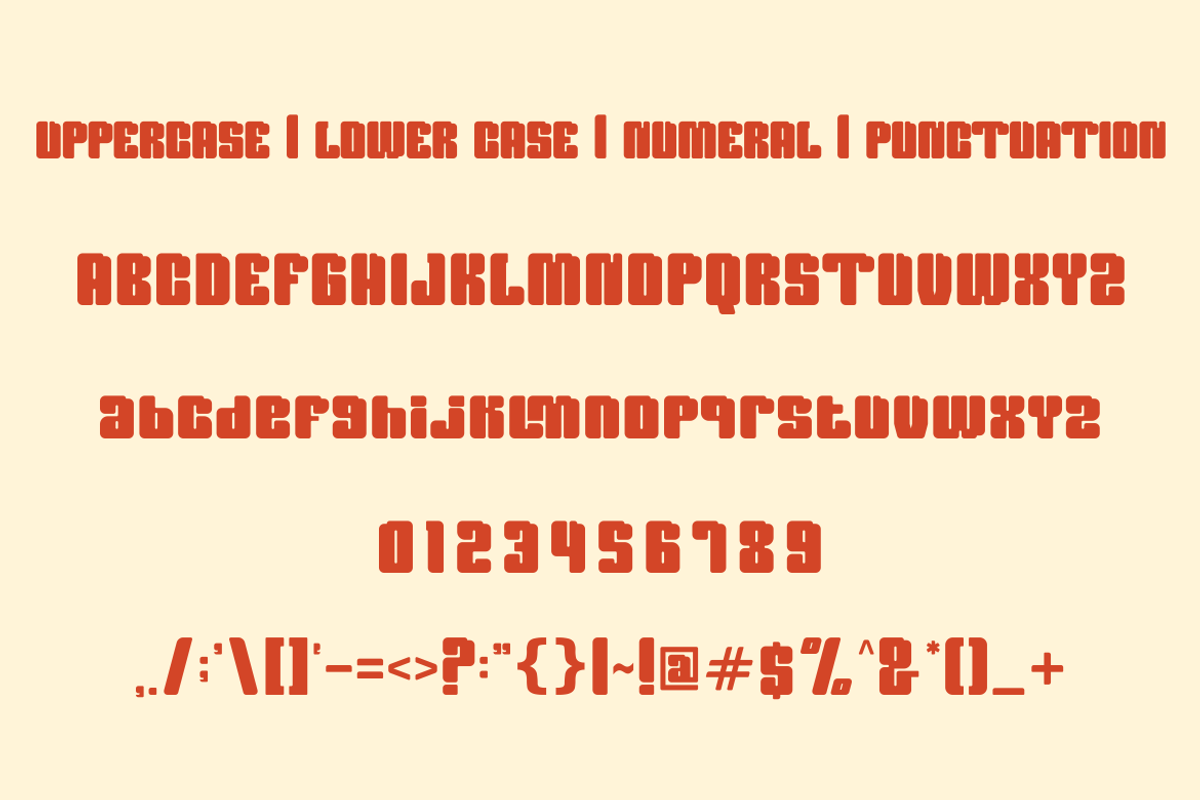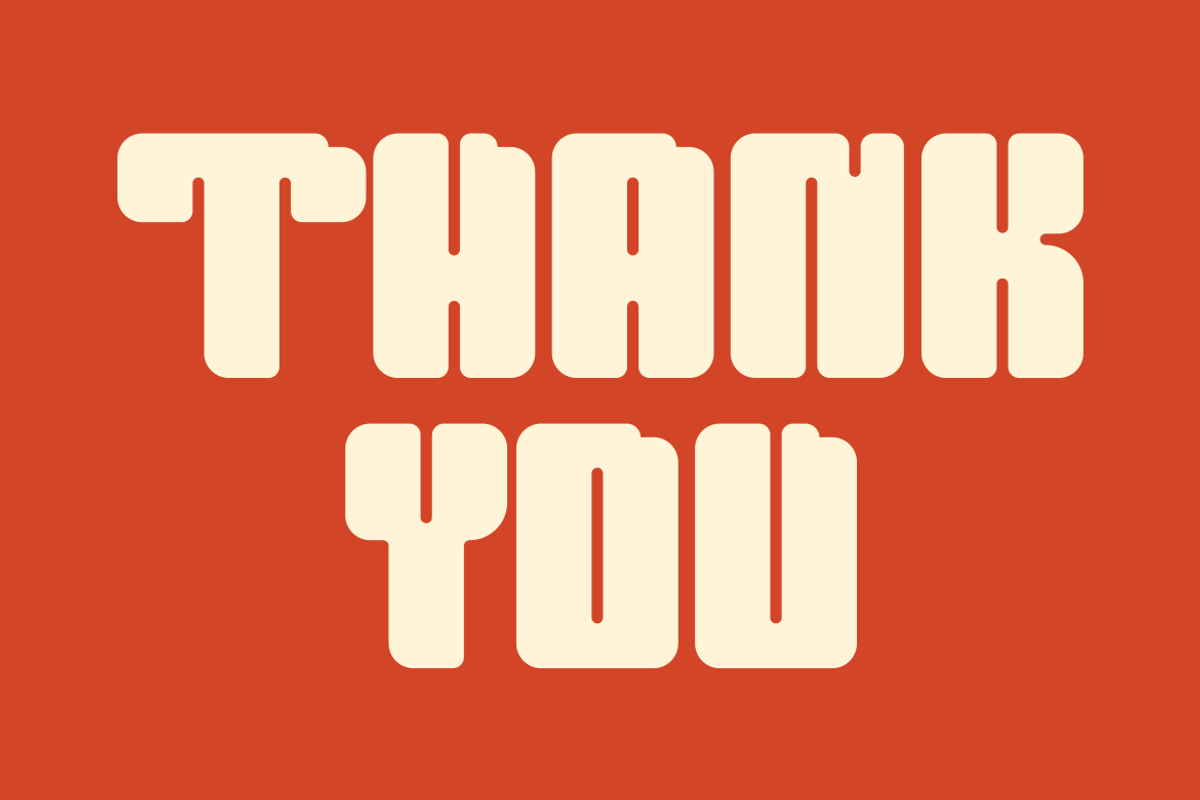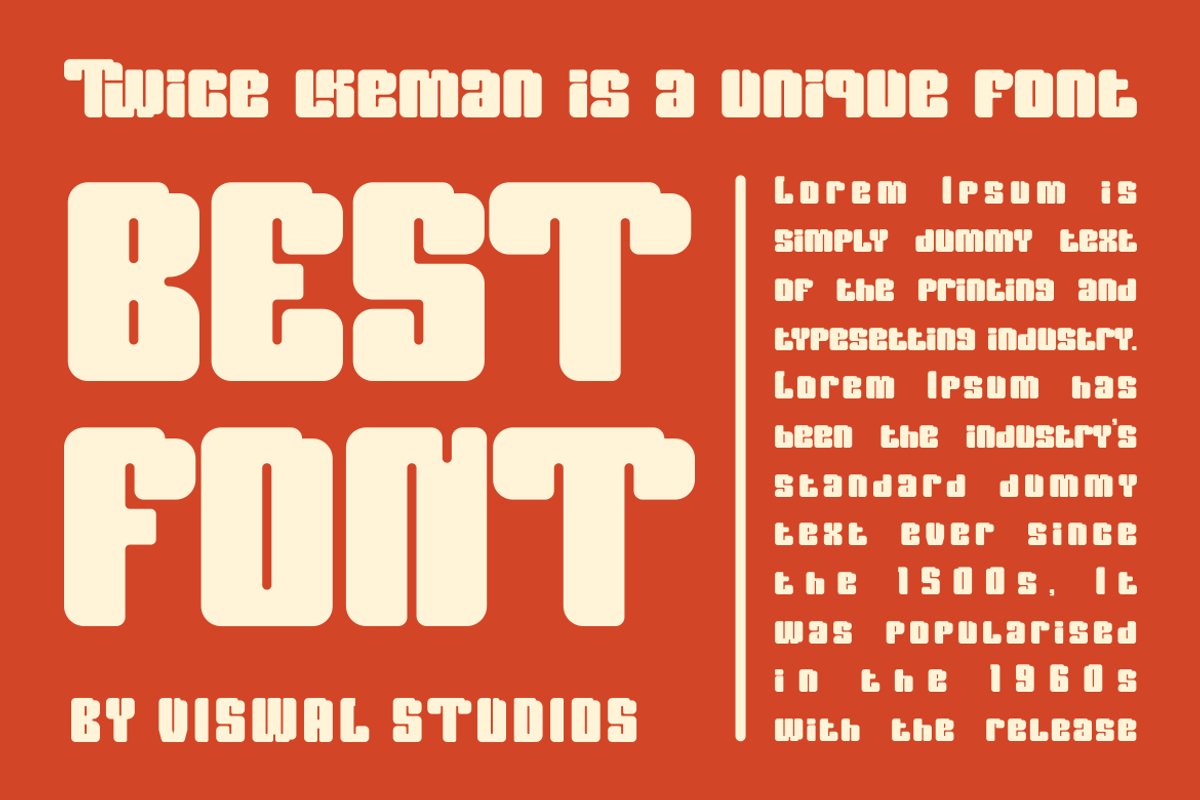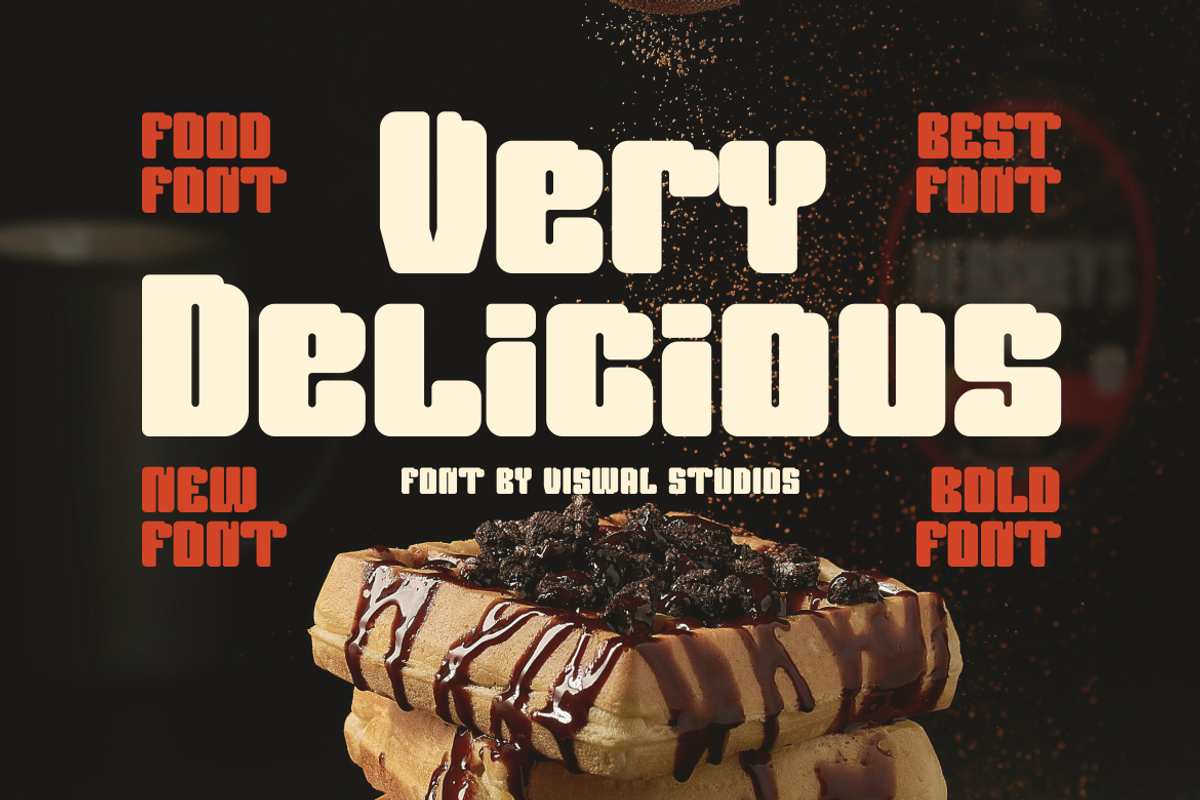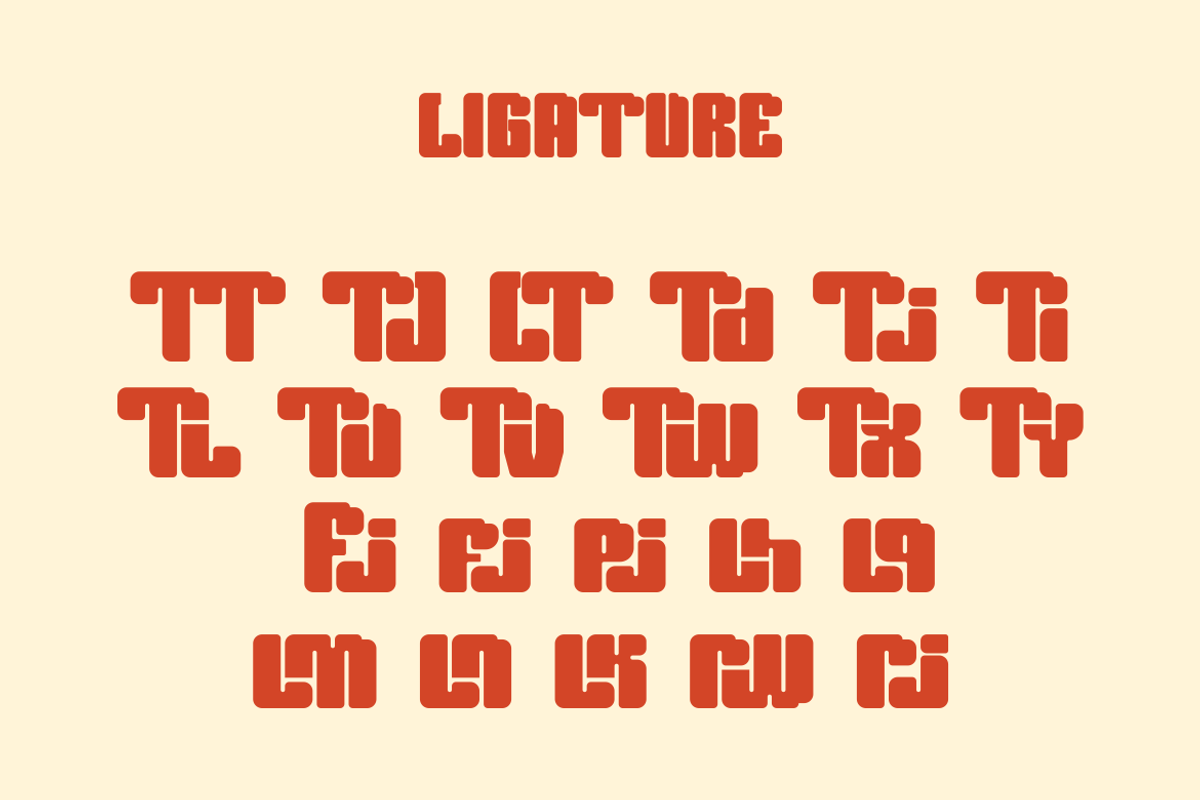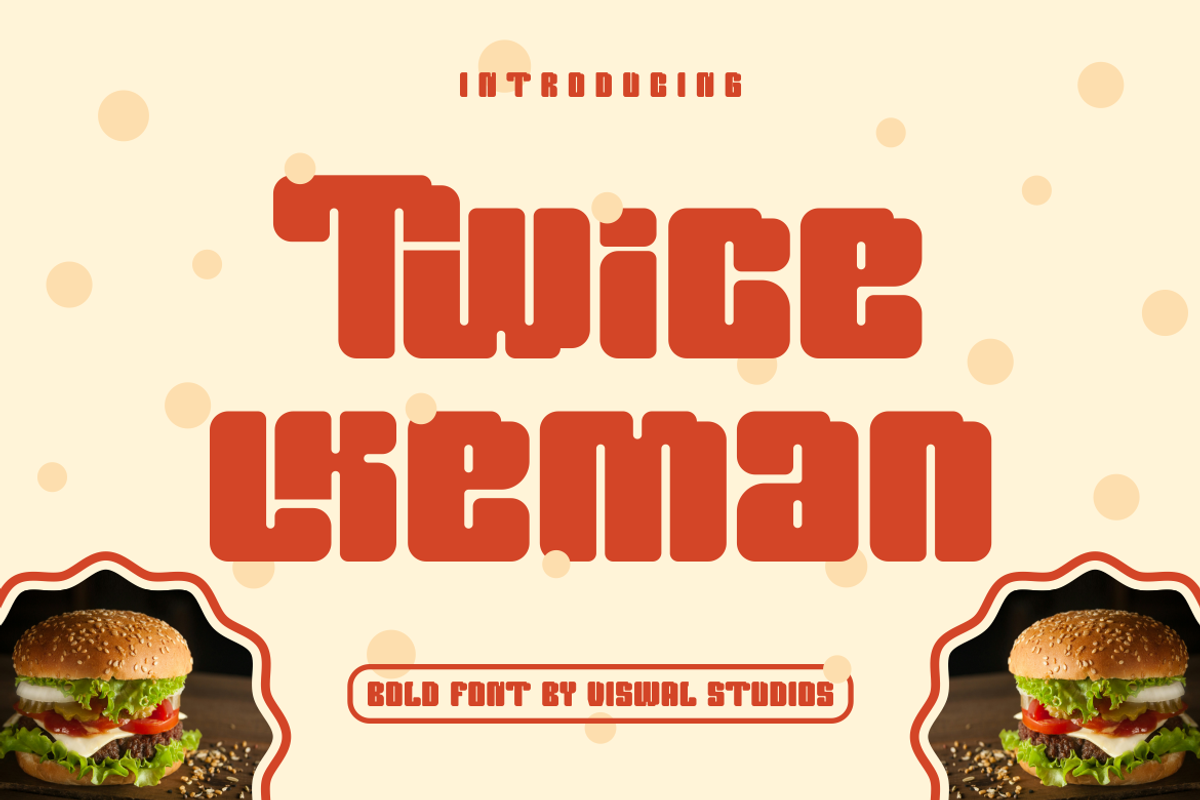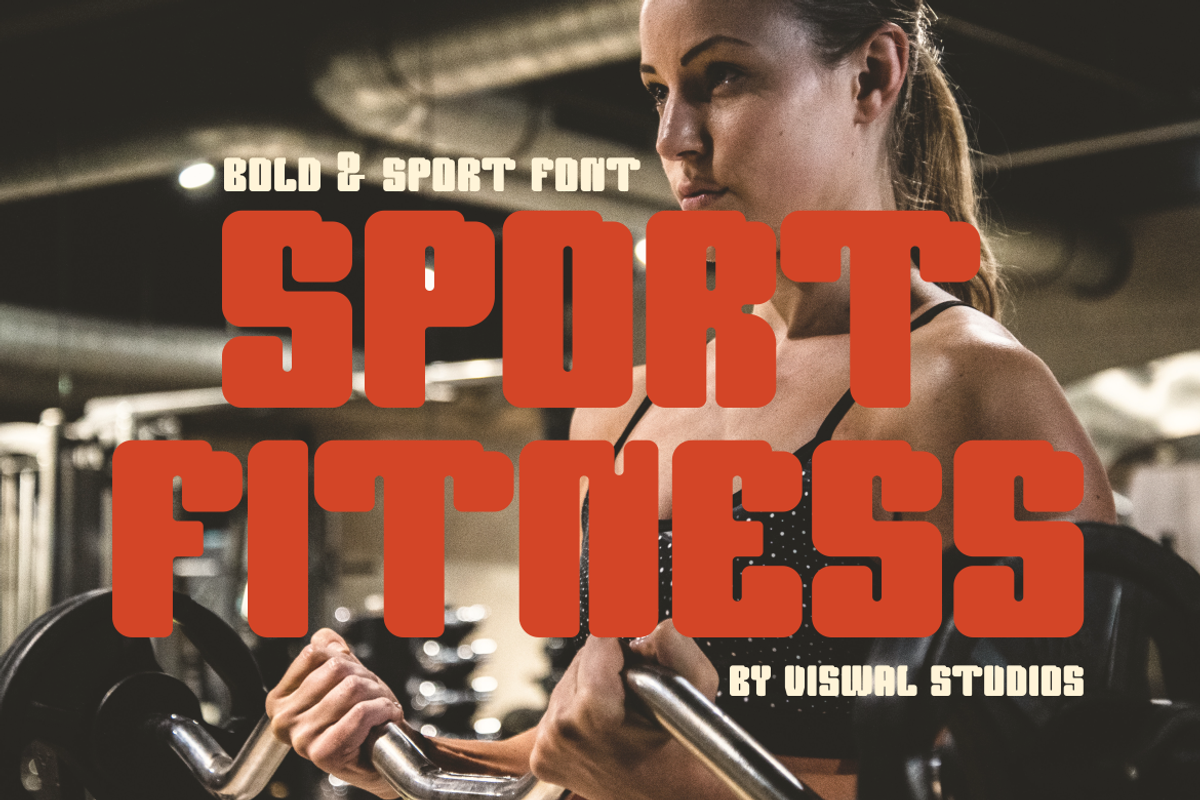
Twice Lkeman - Bold Font
Presenting Twice Lkeman Is A Bold Font.
Can Make It Easier To Convey The Message In Your Design. Font Is Suitable For Logo, Labels, Badge, Branding, Magazine, Poster, Title, Gigs, Covers And Etc. Our Fonts Have Uppercase & Lowercase, Numeral & Punctuation, And Opentype Features. For Amazing Designs You Can Mix With Other Fonts As A Complement.